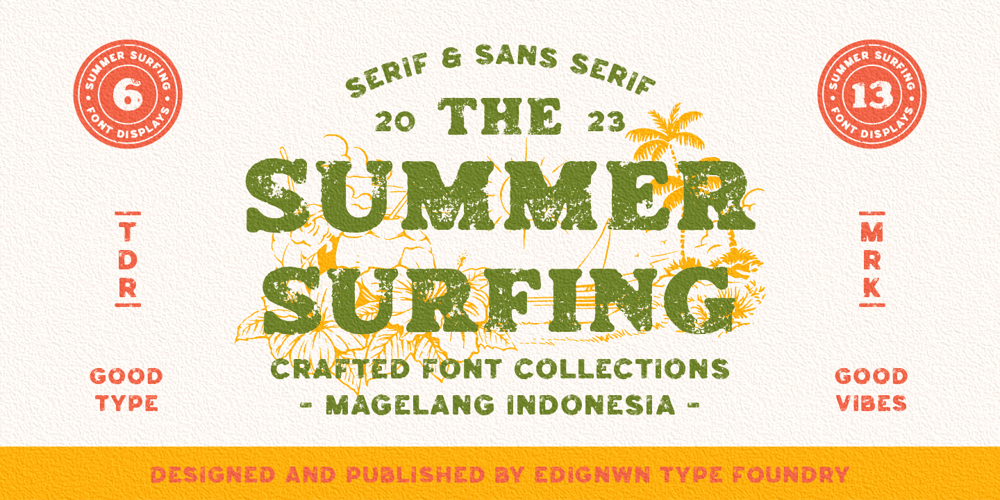
Summer Surfing Font Family was designed by Edi Gunawan and published by Edignwn Type. Summer Surfing contains 7 styles and family package options. Introducing “Summer Surfing”, a font duo – serif and sans serif designed to bring the energy of the waves to your designs! With three styles – regular, rough, and texture – you can create a range of effects, from clean and modern to weathered and rustic.Each style of the font features bold, rounded letters that evoke the movement and curves of the ocean. But that’s not all! Summer Surfing also includes 13 beach-themed illustrations as dingbats, including surfboards, waves, and palm trees.